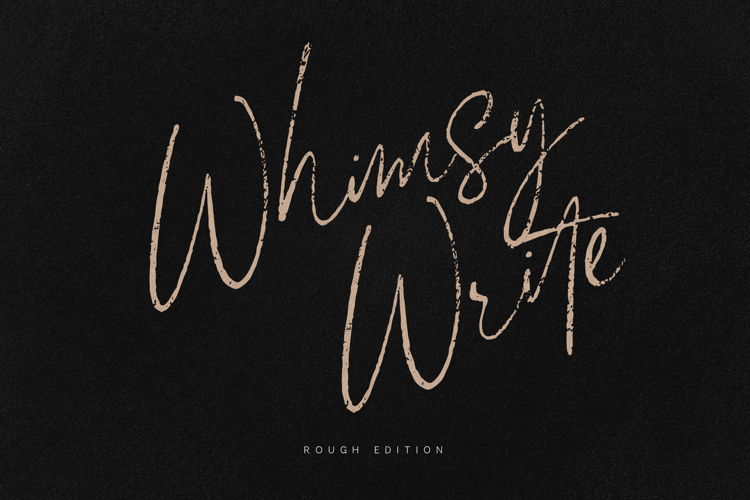
Whimsy Write Rough Script Font
Whimsy Write is a handcrafted script font designed with natural flow, expressive strokes, and authentic handwritten character. Its organic movement and slightly textured details create a warm and modern look that feels both elegant and effortless.
Perfect for branding, logos, packaging, wedding invitations, quotes, social media graphics, posters, and signature-style designs, Whimsy Write adds personality and charm to every project.
The font includes uppercase, lowercase, numbers, punctuation, and multilingual support, giving you flexibility while maintaining its cohesive handwritten style.
Expressive. Natural. Stylish.